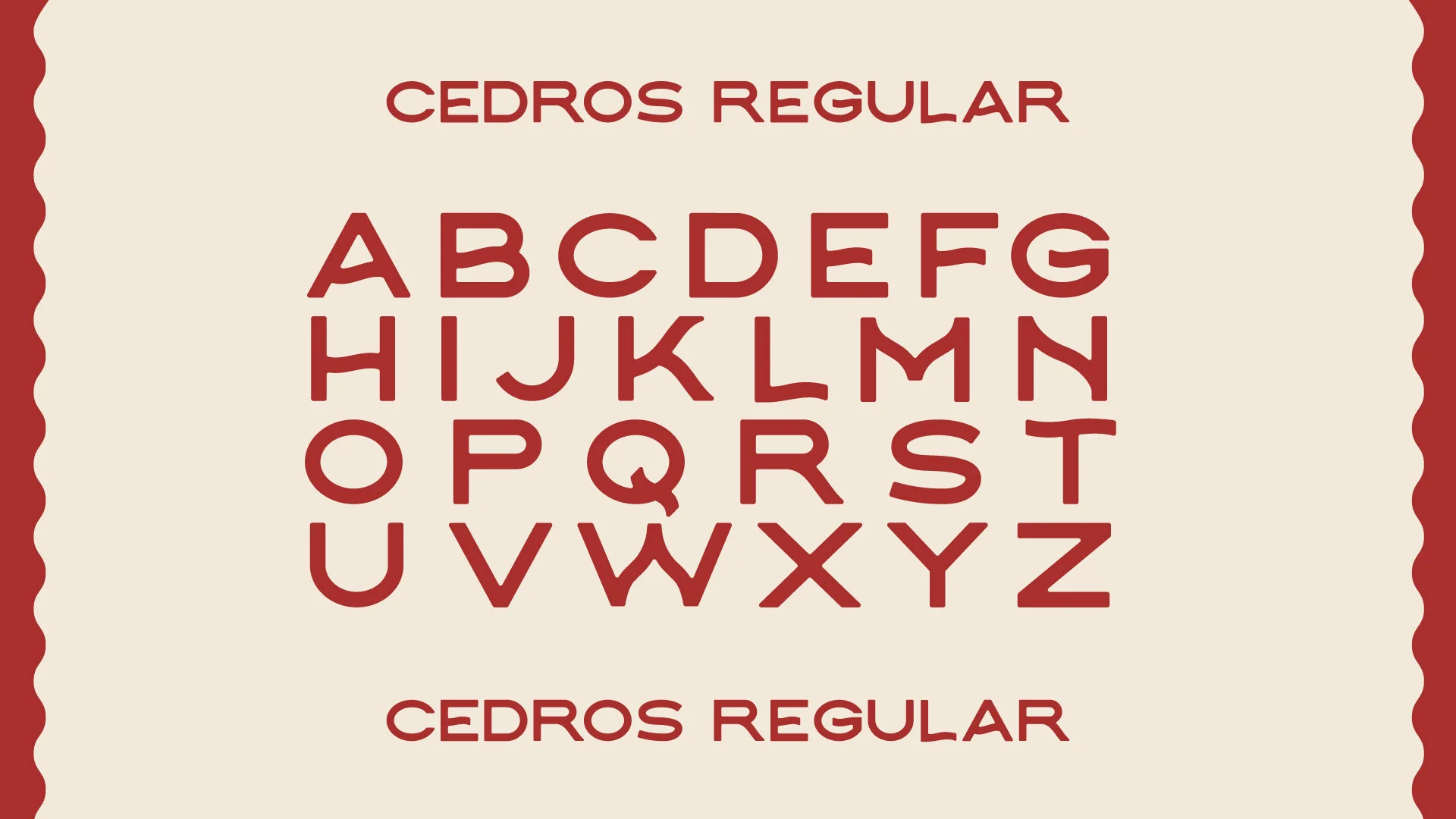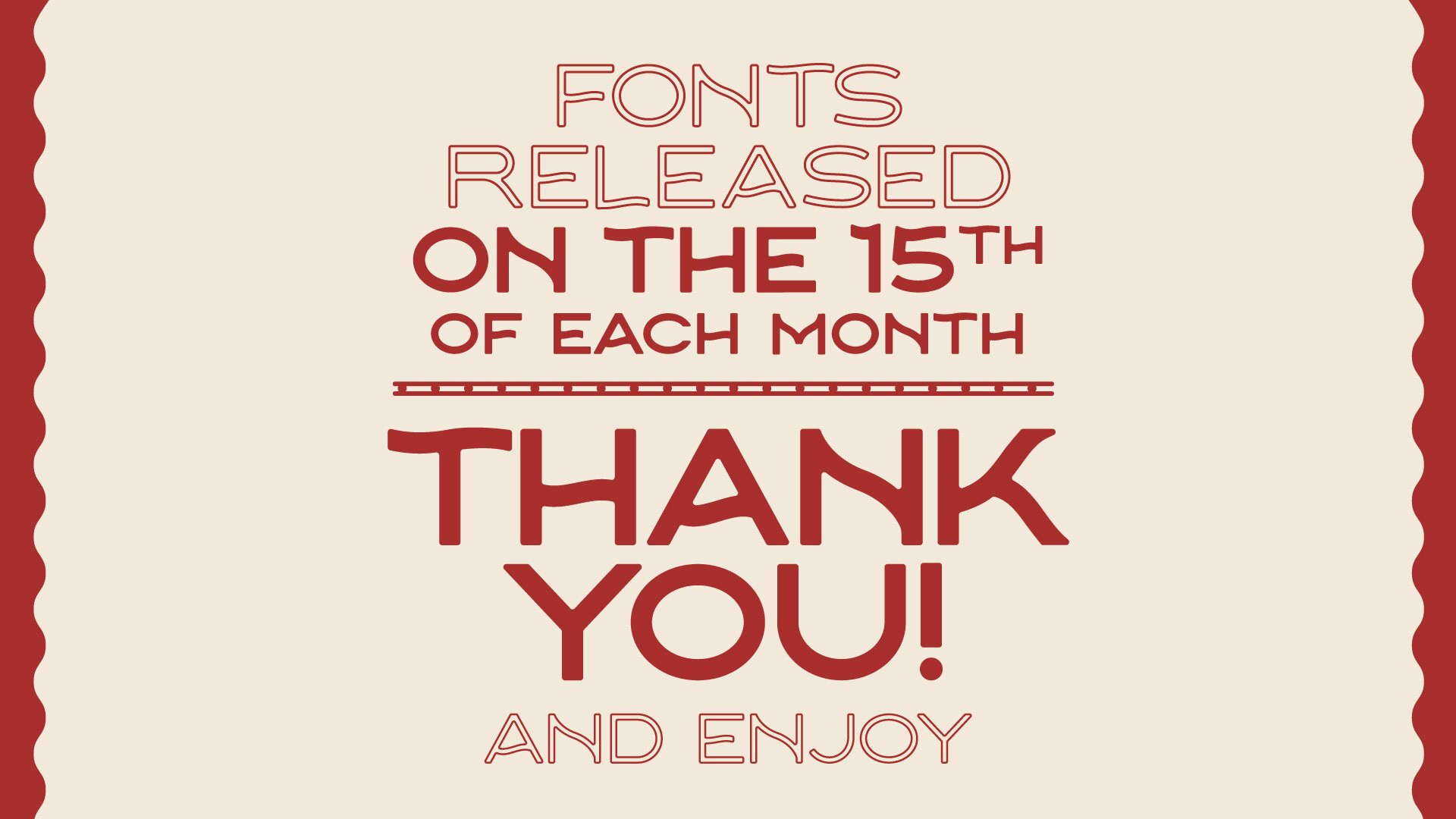
Cedros Typeface
The Cedros Typeface is a clean, sans serif font that features subtle, stylized letters. Perfectly fit for branding, headings, and short copy.